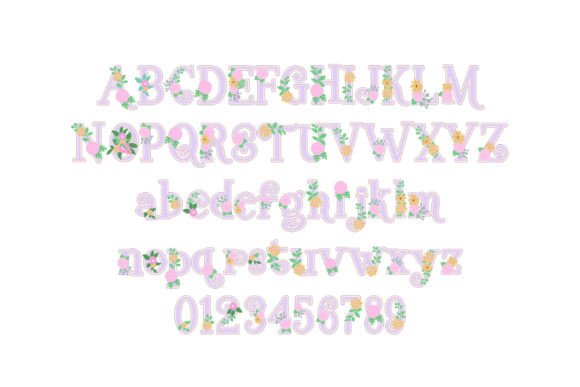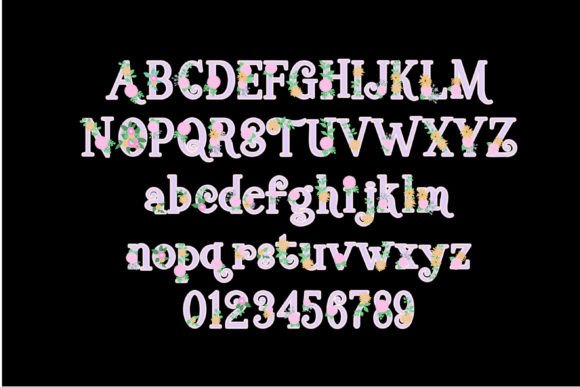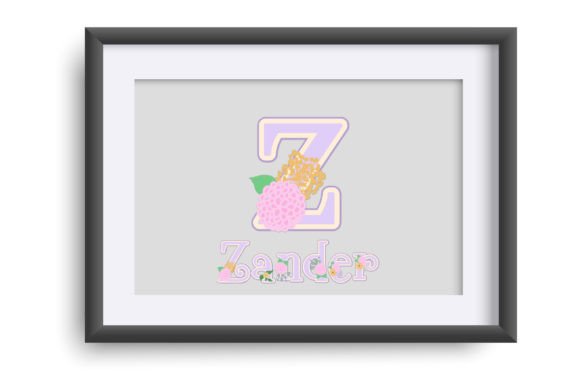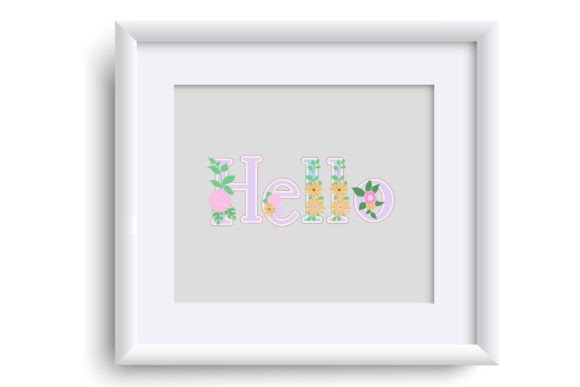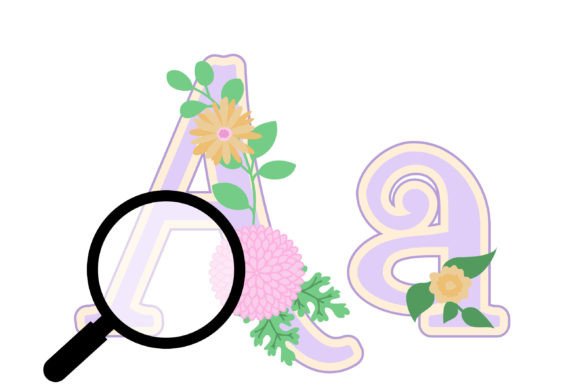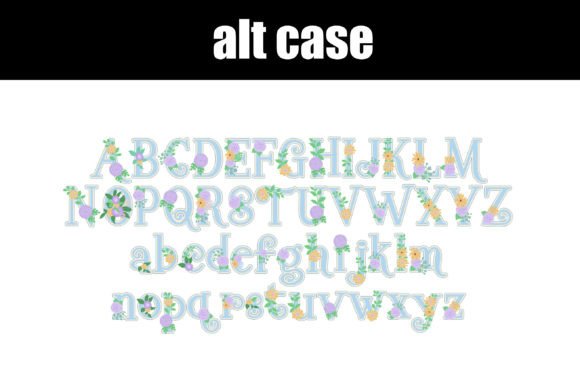
Easter Mums Font: A Whimsical and Playful Addition to Your Creative Projects
Are you looking for a font that can add a touch of playfulness and charm to your invitations, cards, and other creative projects? Look no further than Easter Mums Font! This delightful font is an explosion of vibrant hues and blooming flowers, making it perfect for designers and crafters who want to create unique and eye-catching designs.
A Unique and Whimsical Design
Easter Mums Font is a one-of-a-kind font that features a unique floral design for each letter. The font is a delightful explosion of vibrant hues and blooming flowers, making it perfect for adding a touch of playfulness and charm to your designs. Whether you’re creating invitations, cards, or other creative projects, Easter Mums Font is sure to make your designs stand out.
One of the best things about Easter Mums Font is that it’s PUA encoded, which means you can access all glyphs and swashes effortlessly. PUA (Private Use Area) encoding allows designers to access a wide range of glyphs and swashes, making it easy to create unique and complex designs. With Easter Mums Font, you can easily access all the glyphs and swashes you need to create stunning designs.
Easter Mums Font is perfect for designers and crafters who want to add a touch of playfulness and charm to their designs. Whether you’re creating invitations, cards, or other creative projects, this font is sure to make your designs stand out. The font is also perfect for anyone who loves flowers and wants to add a touch of whimsy to their designs.
Use Easter Mums Font for:
- Invitations: Use Easter Mums Font to create unique and eye-catching invitations for parties, weddings, and other special events.
- Cards: Add a touch of playfulness and charm to your cards with Easter Mums Font.
- Creative Projects: Use Easter Mums Font to add a touch of whimsy to your creative projects, such as scrapbooking, journaling, and more.
Tips for Using Easter Mums Font
Here are a few tips for using Easter Mums Font:
- Use it sparingly: Easter Mums Font is a bold and eye-catching font, so use it sparingly to avoid overwhelming your designs.
- Pair it with other fonts: Pair Easter Mums Font with other fonts to create a unique and interesting design.
- Experiment with colors: Easter Mums Font comes in a range of vibrant colors, so experiment with different colors to find the one that works best for your design.
Easter Mums Font is a whimsical and playful font that’s perfect for adding a touch of charm and playfulness to your designs. With its unique floral design and PUA encoding, this font is sure to make your designs stand out. Whether you’re a designer or crafter, Easter Mums Font is a great addition to your font collection.